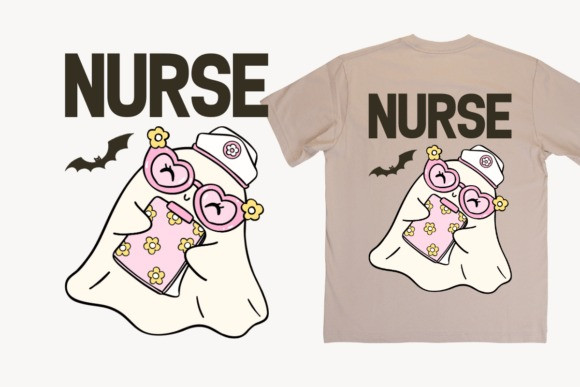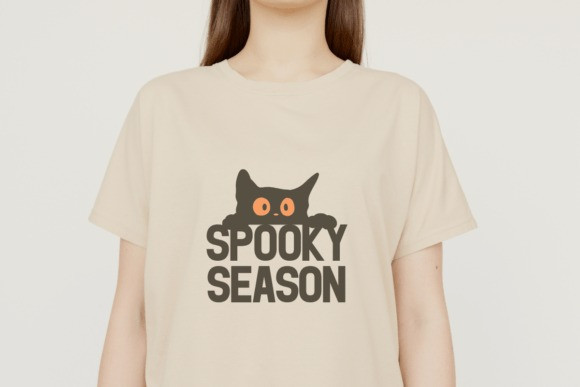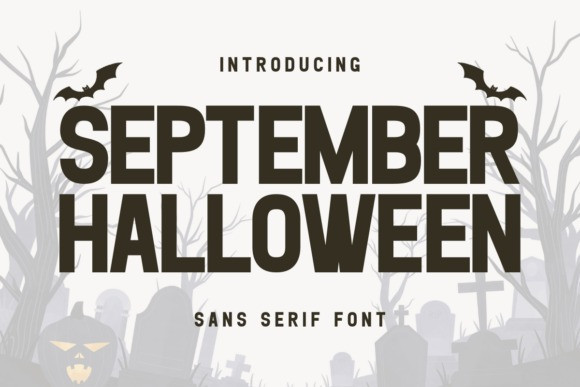
September Halloween Font
September Halloween Font is a bold sans-serif font with a spooky Halloween theme. Its strong and sharp letterforms are perfect for creating horror posters, Halloween party invitations, scary movie titles, creepy merchandise, banners, t-shirt designs, and seasonal decorations. The font combines a modern sans serif style with a dark, eerie vibe that makes your design stand out during the Halloween season.